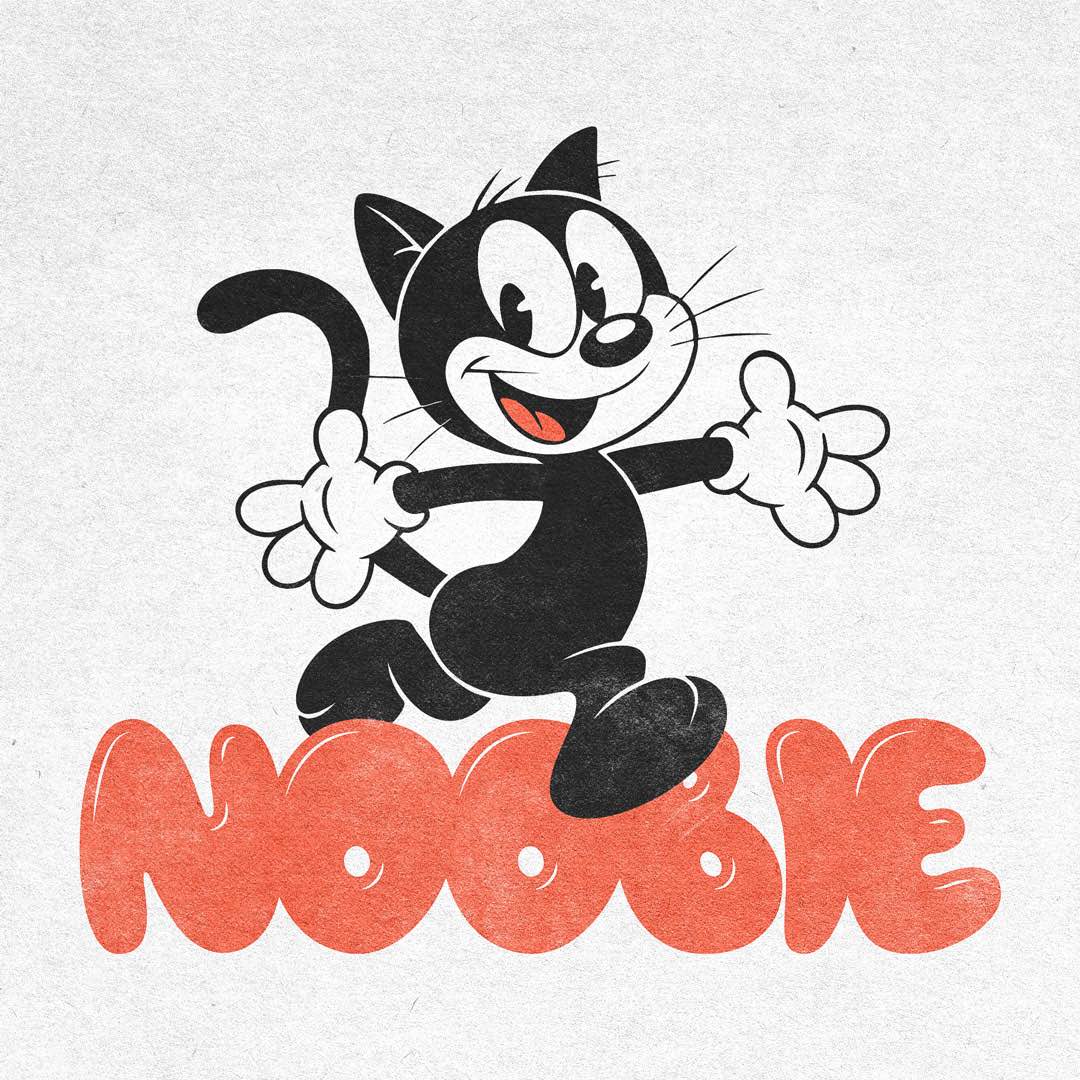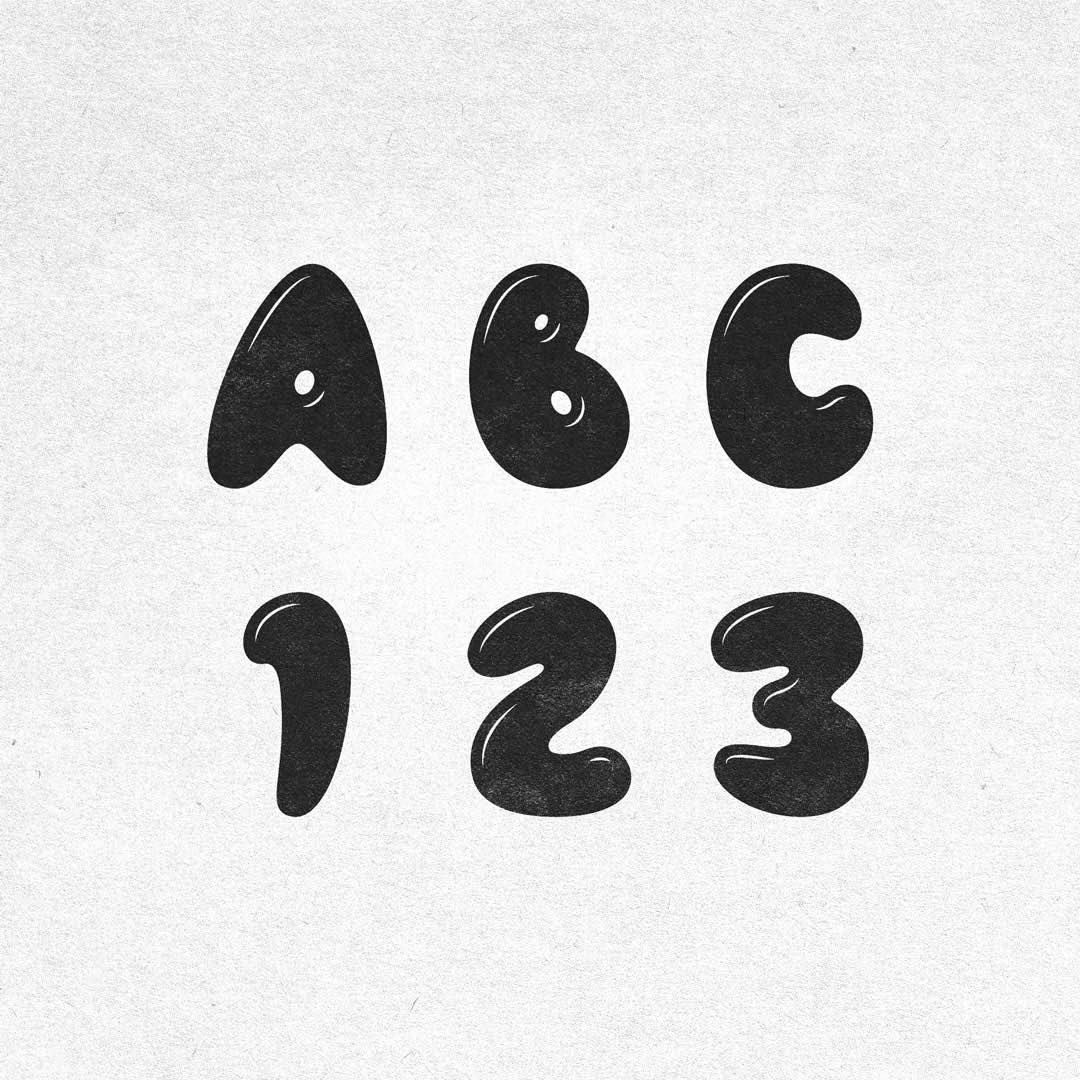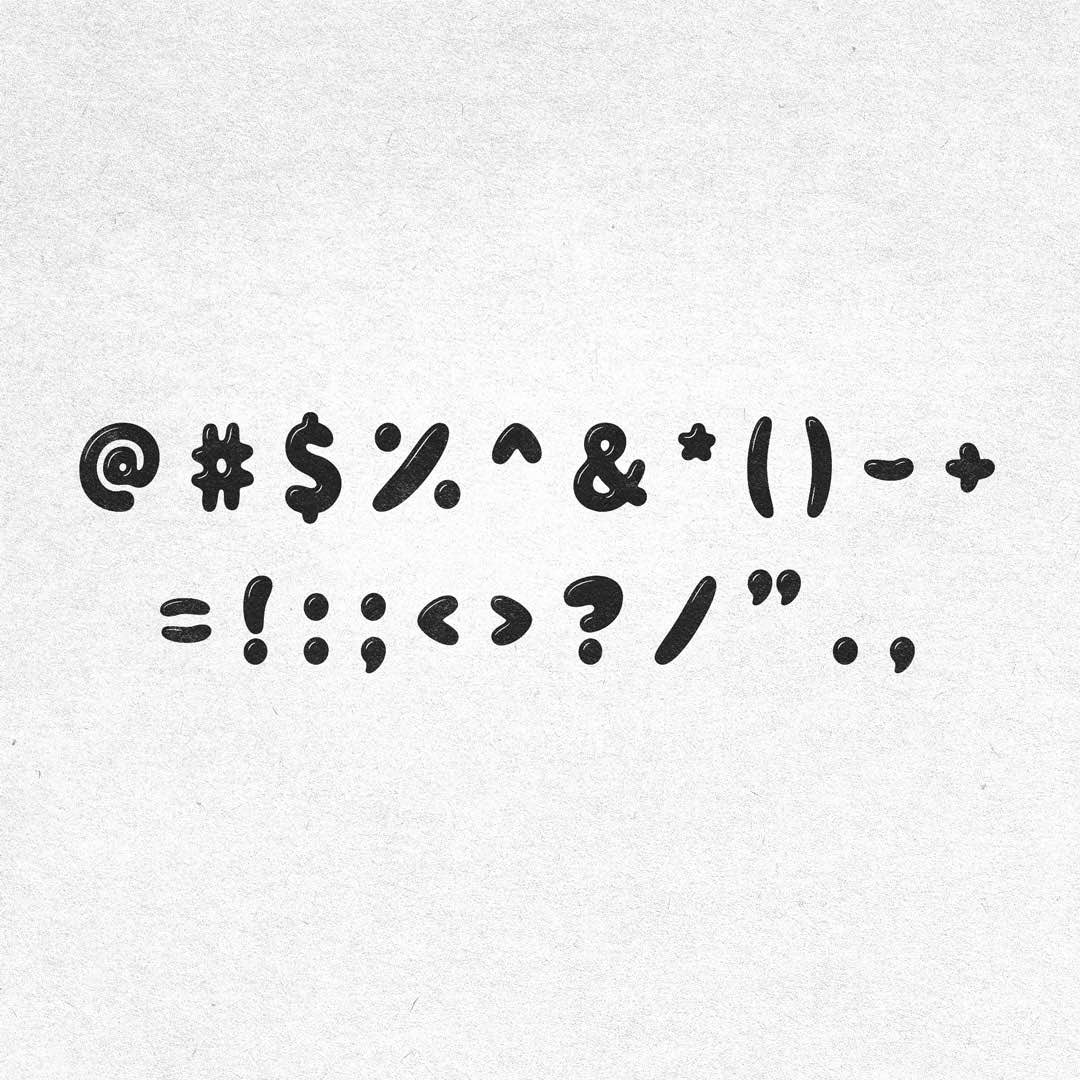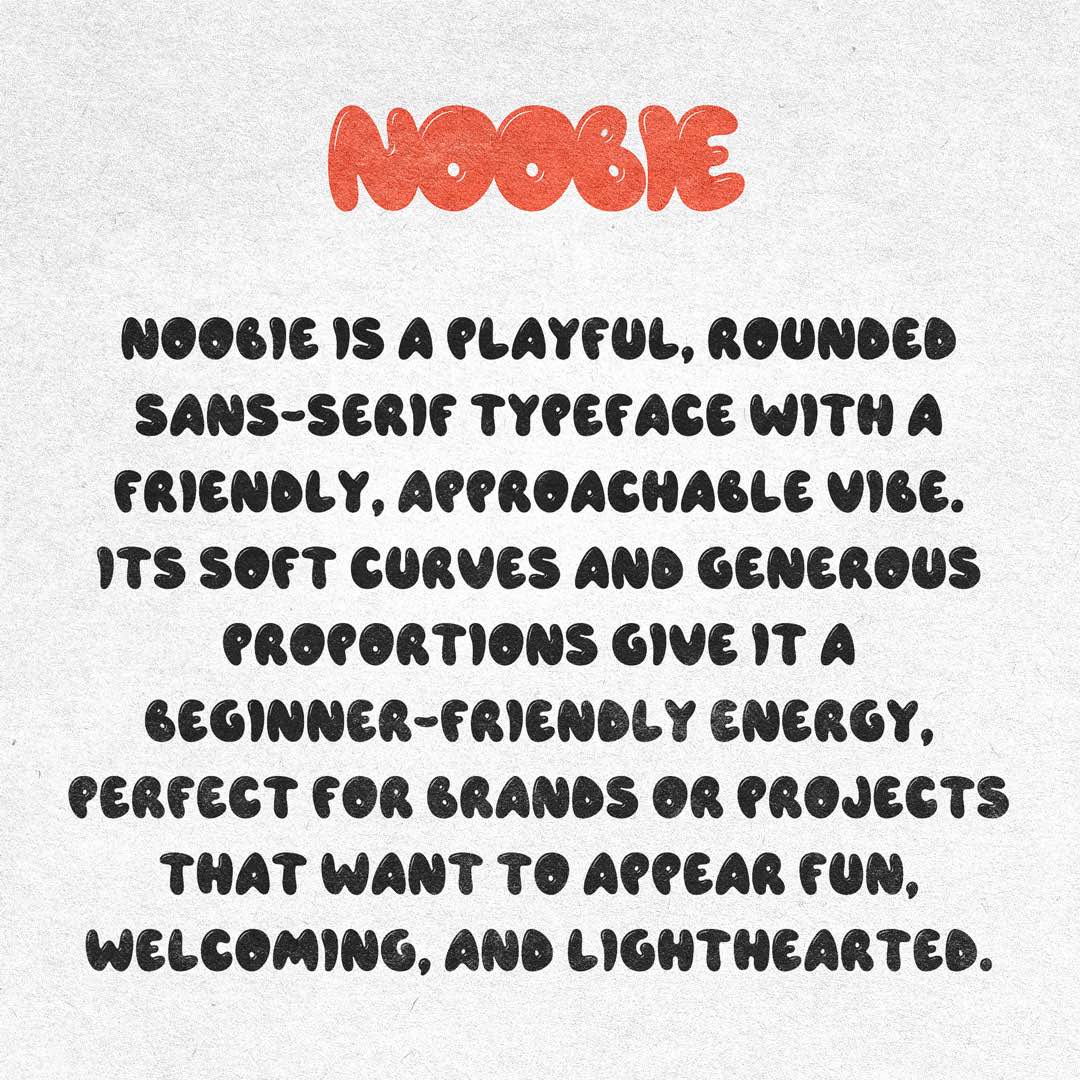
Noobie is the font equivalent of a warm welcome and a wink. Rounded, approachable, and effortlessly friendly, this sans-serif typeface brings playful clarity to anything it touches, from children’s books to onboarding screens to quirky merch drops. Designed with wide, open shapes and soft geometry, Noobie is perfect for projects that want to come off as fun, safe, and just a little bit silly…in the best way.